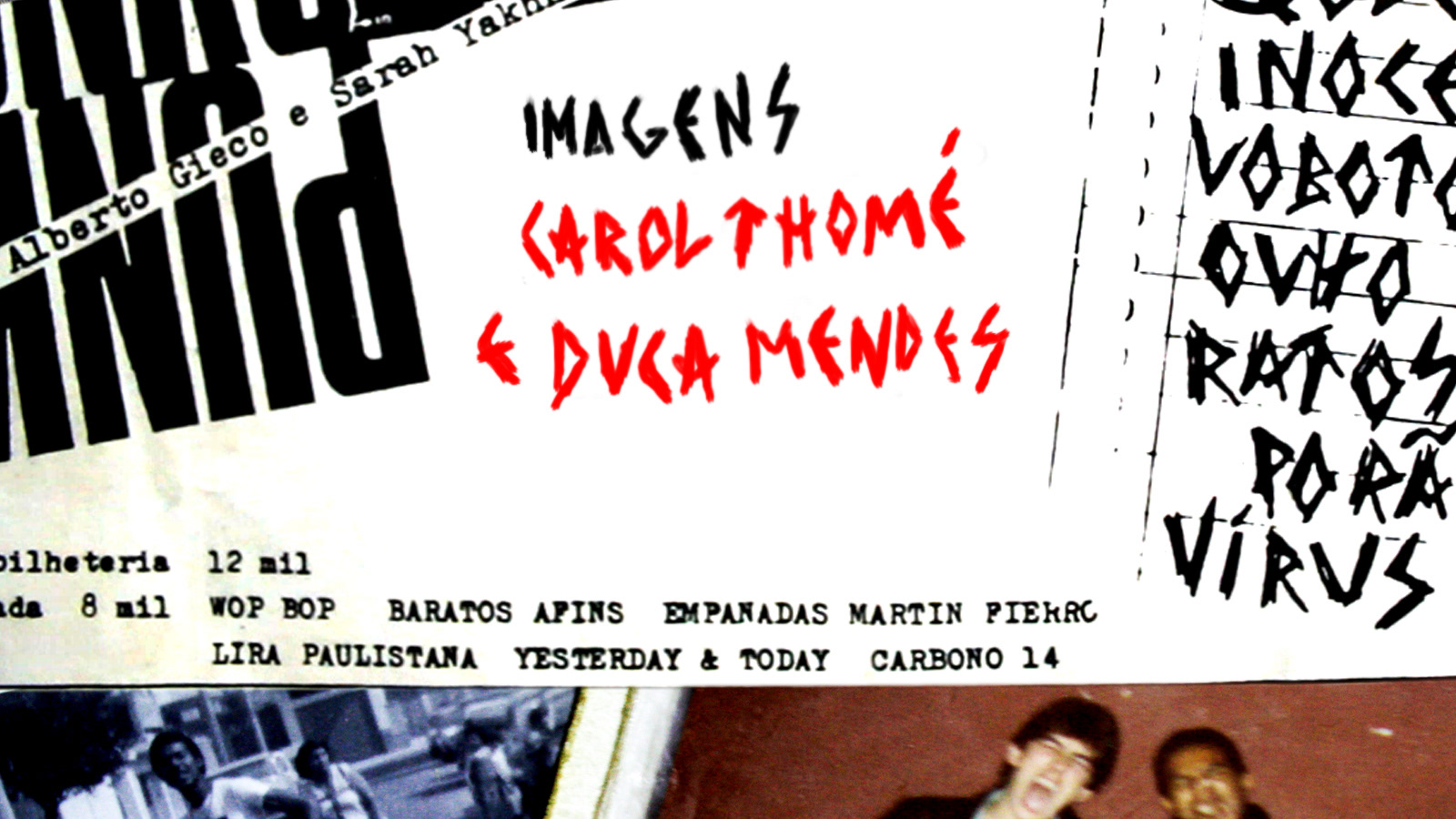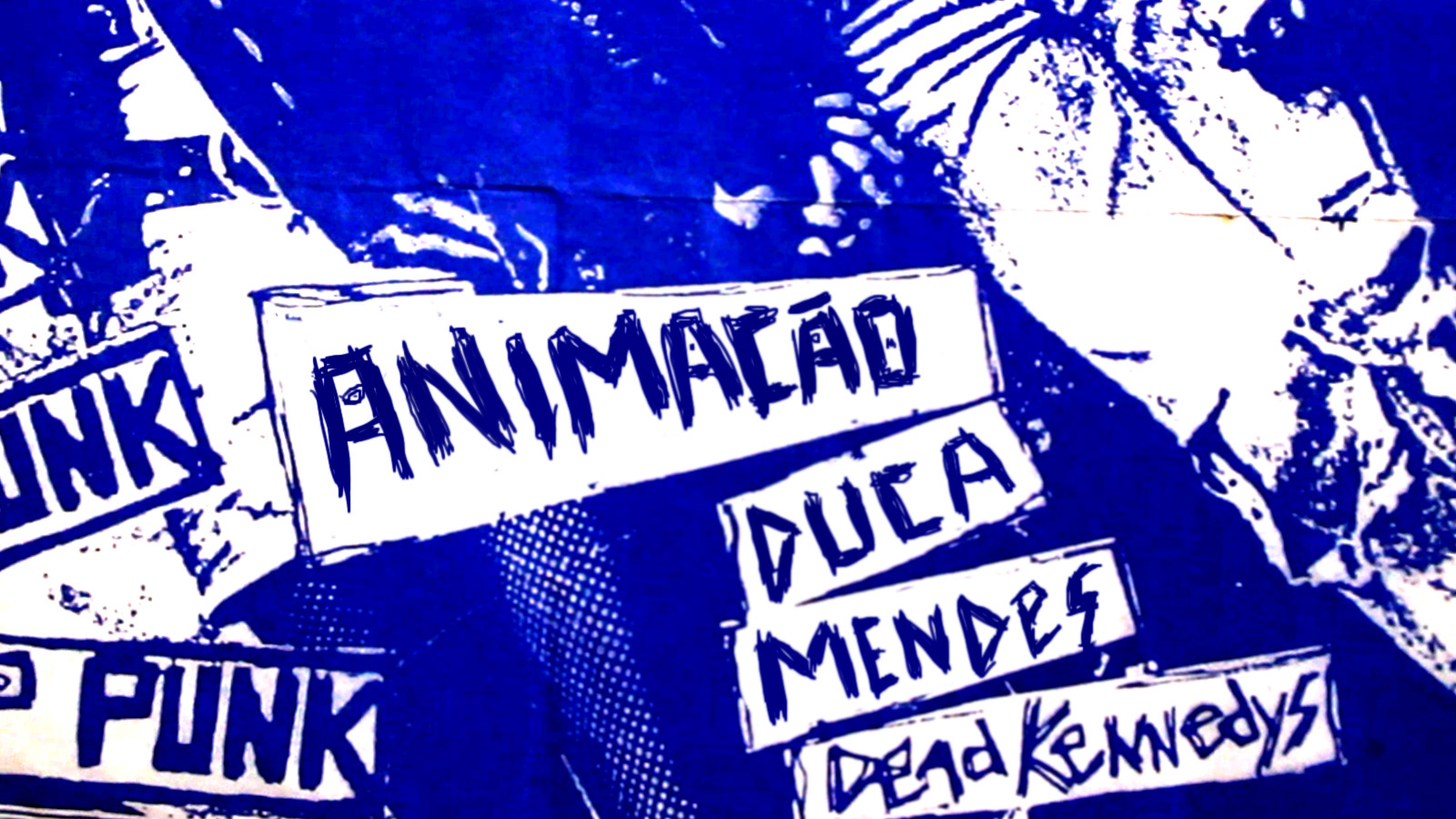
Inocentes 30th anniversary
Lettering
Inocentes is an emblematic S.o Paulo’s punk band. To celebrate their 30th anniversary in August 2011 they produced a DVD with a new show, interviews and historical material. Their story merges with the History of the punk movement in Brazil and with the end of the dictatorial governorship that ruled Brazil from the 60ÅLs until
the late 80ÅLs. As the co-Art Director I designed the title lettering. The inspiration came from old audio tapes, punk fanzines and newspaper reportsform that time.